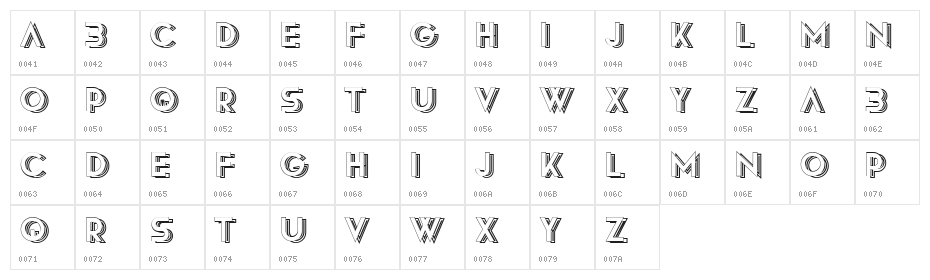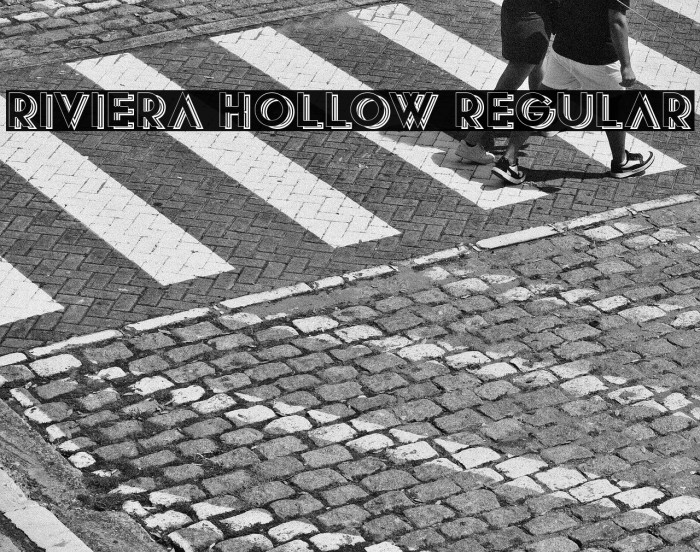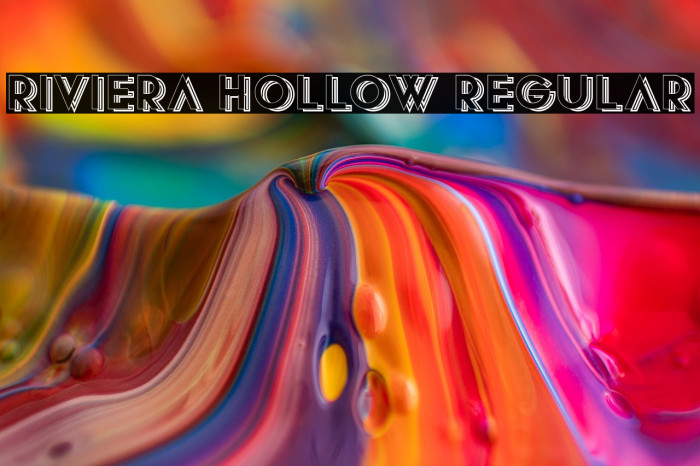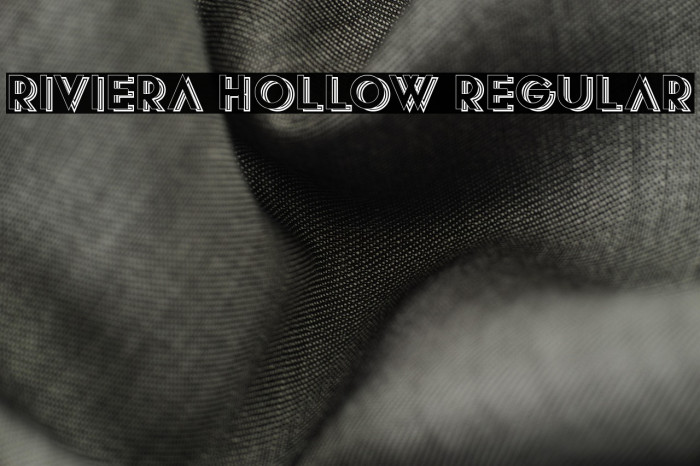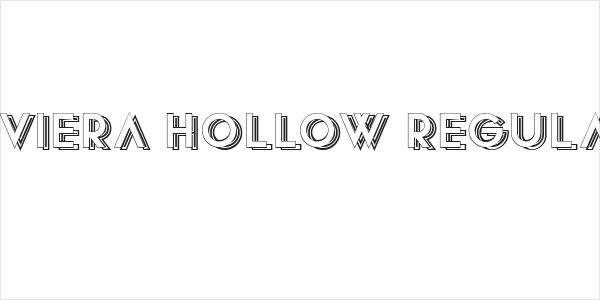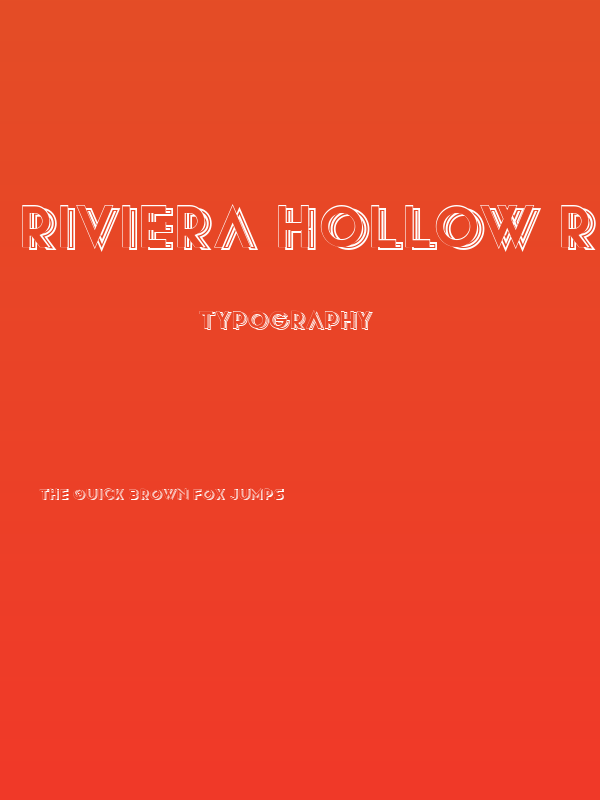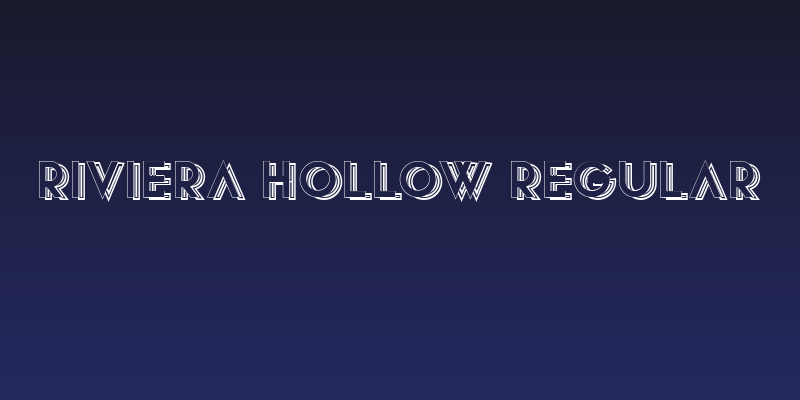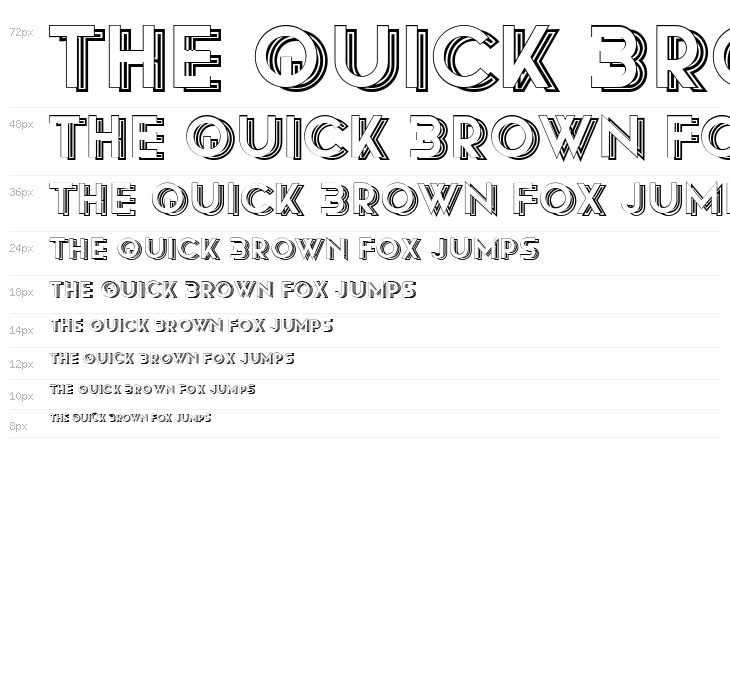
Riviera Hollow Regular Font
Riviera Hollow Regular Description
This font features a unique hollow design with a geometric and structured appearance. The characters are outlined, creating a three-dimensional effect that adds depth and interest. The style is bold and eye-catching, making it suitable for attention-grabbing headlines or artistic projects. Each letter is crafted with precision, maintaining a consistent width and spacing that enhances readability despite its decorative nature. The font's modern and stylish look makes it versatile for various creative applications, from branding to poster design.
| Proposed Projects | Ideal for branding, poster design, headlines, and artistic projects requiring a modern and bold look. |